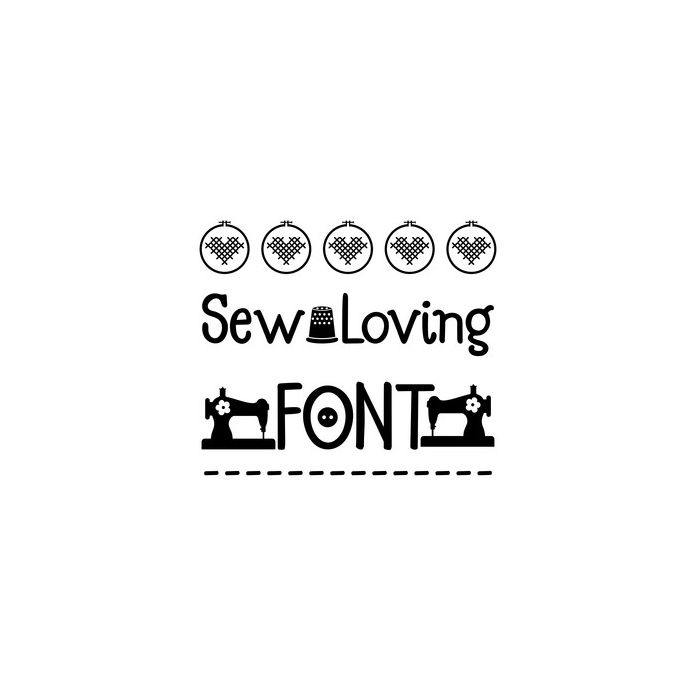
This adorable font includes several icons for sewing such as: sewing machine, embroidery hoop, cross stitch heart, button, and scissors. To access these icons, use the following keys: * ^ { } [ ] |